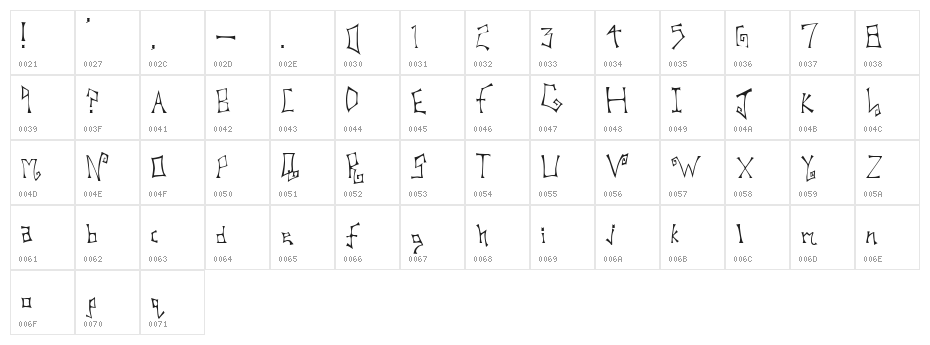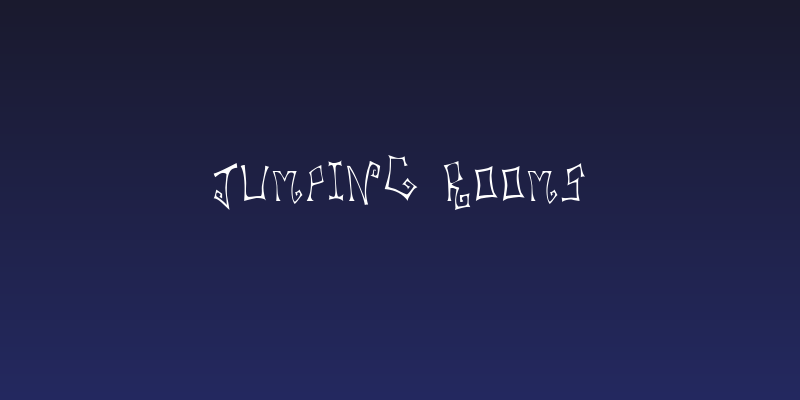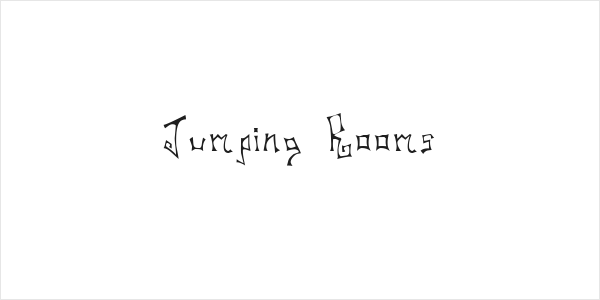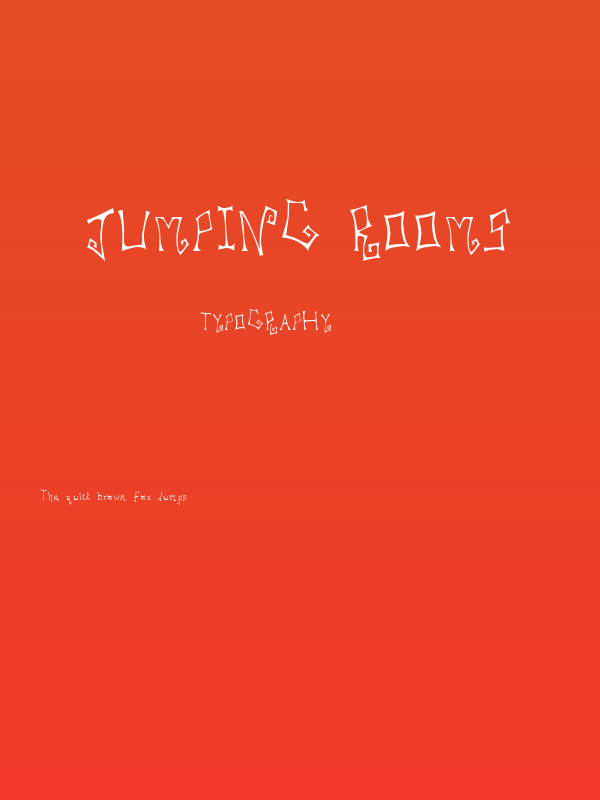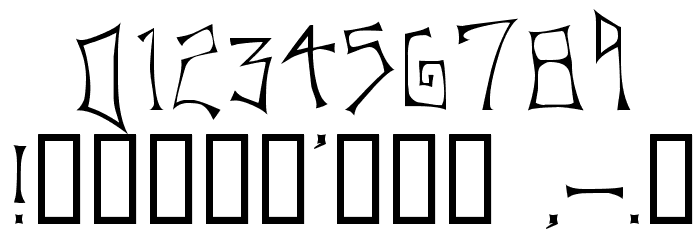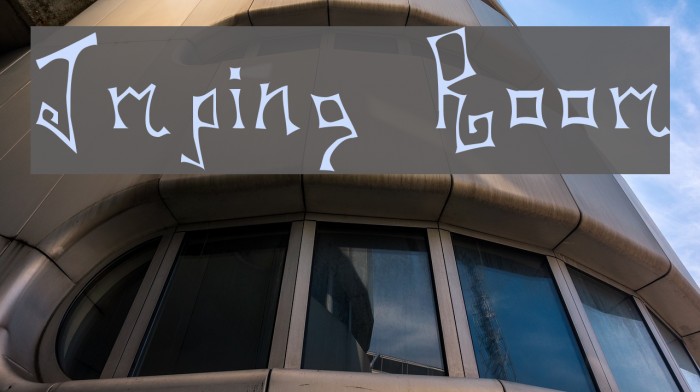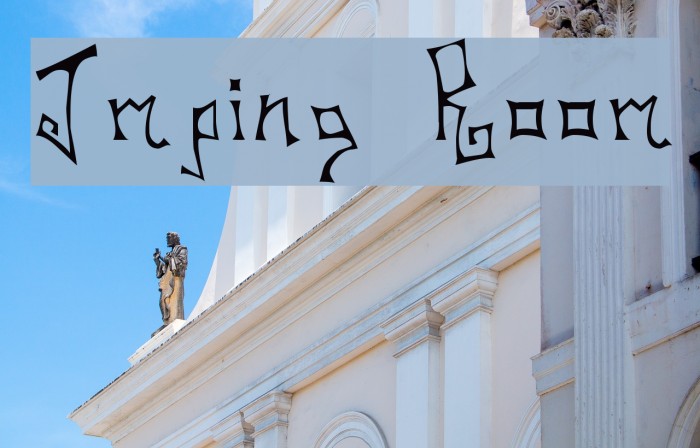
Jumping Rooms Font
Jumping Rooms Description
This font features a whimsical and playful design, characterized by its irregular and quirky letterforms. Each character exhibits unique twists and turns, giving it a dynamic and energetic appearance. The uppercase letters are particularly distinctive, with some incorporating spiral or angular elements that add to the font's eccentric charm. The lowercase letters maintain a similar style, ensuring consistency throughout the typeface. Numbers and special characters are also designed with the same playful aesthetic, making this font ideal for creative and unconventional projects.
| Overall Style | Playful, Whimsical |
| Use Case | Headlines, Posters, Creative projects |
| Proposed Projects | Ideal for children's books, playful branding, party invitations, and creative posters. |